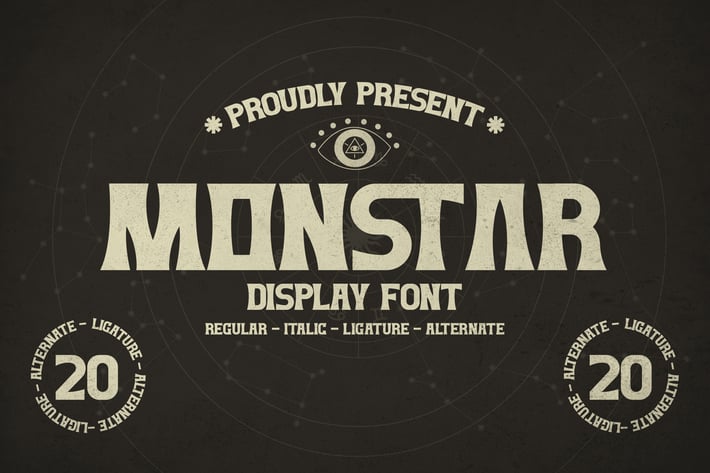
Monstar Classy Display Font
Monstar Classy Display Font is a bold vintage-inspired typeface with strong character and retro charm. Featuring sharp geometric edges, high-contrast forms, and expressive ligatures, this display font brings an old-school aesthetic reimagined for modern design. Its unique letter shapes and handcrafted vibe make it perfect for standout titles and nostalgic branding.
Bold retro display style
Sharp geometric letterforms with vintage personality
Alternates & ligatures for added stylistic variety
Includes Regular & Italic variations
A striking blend of retro attitude and modern craftsmanship — Monstar Classy makes every title unforgettable.